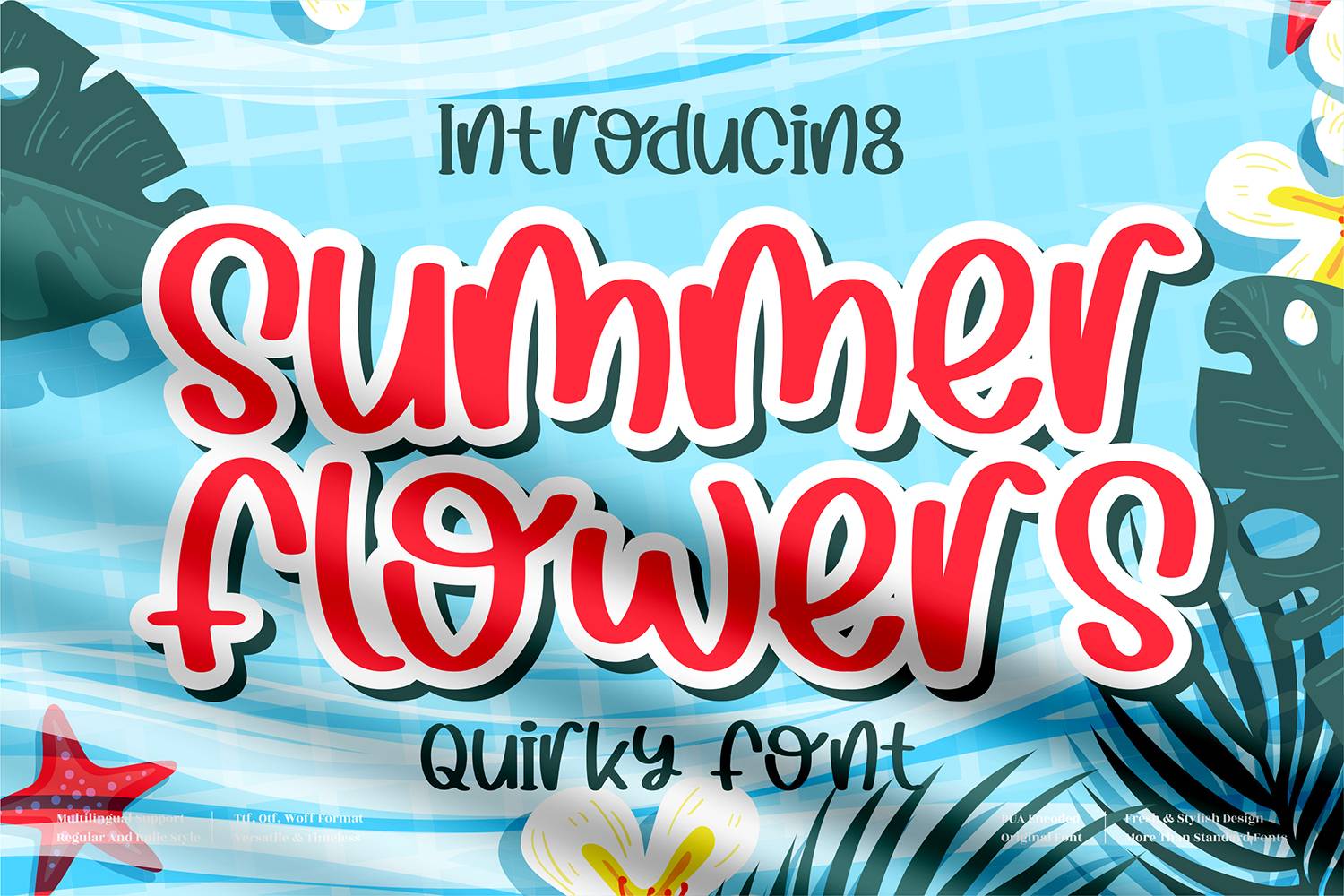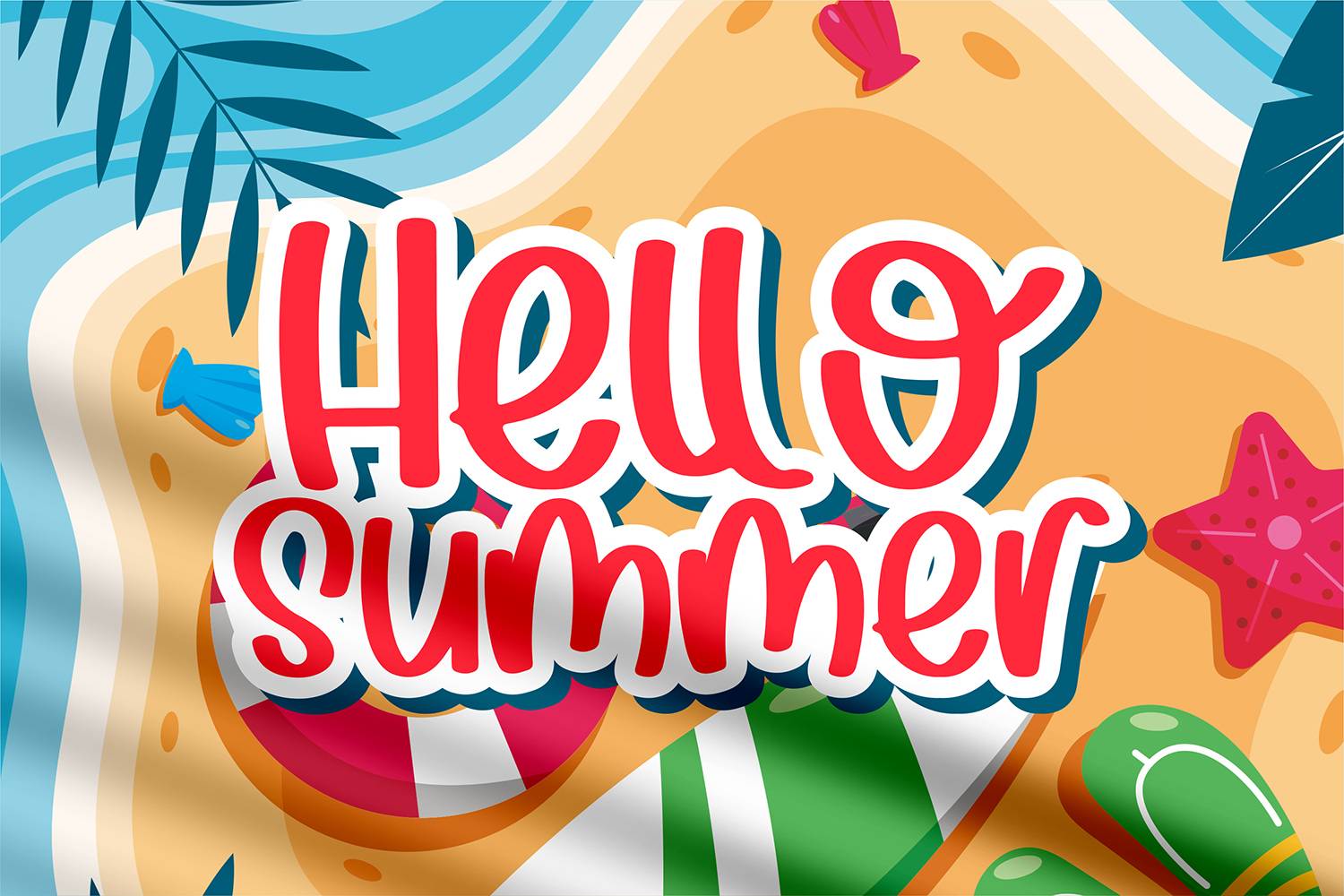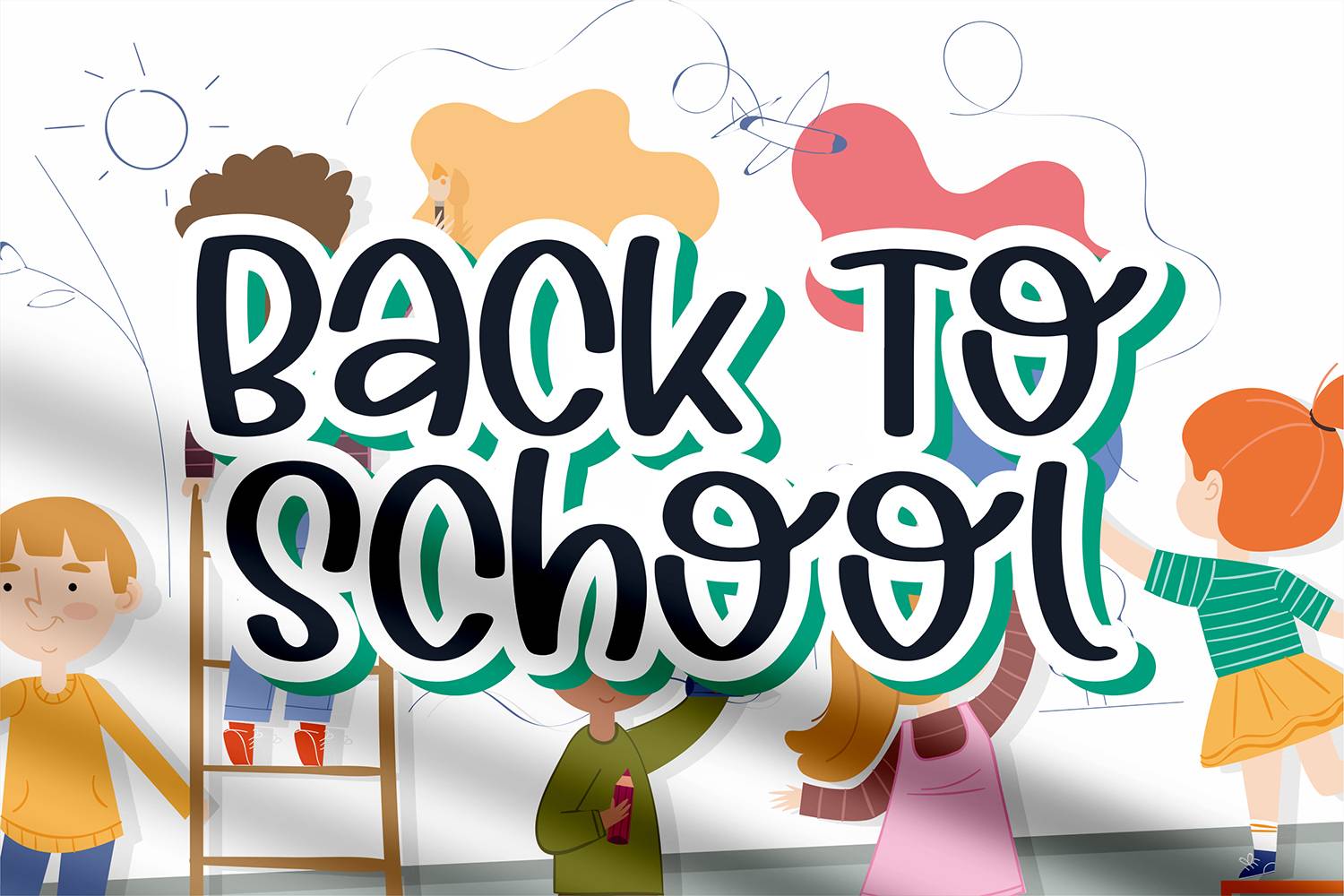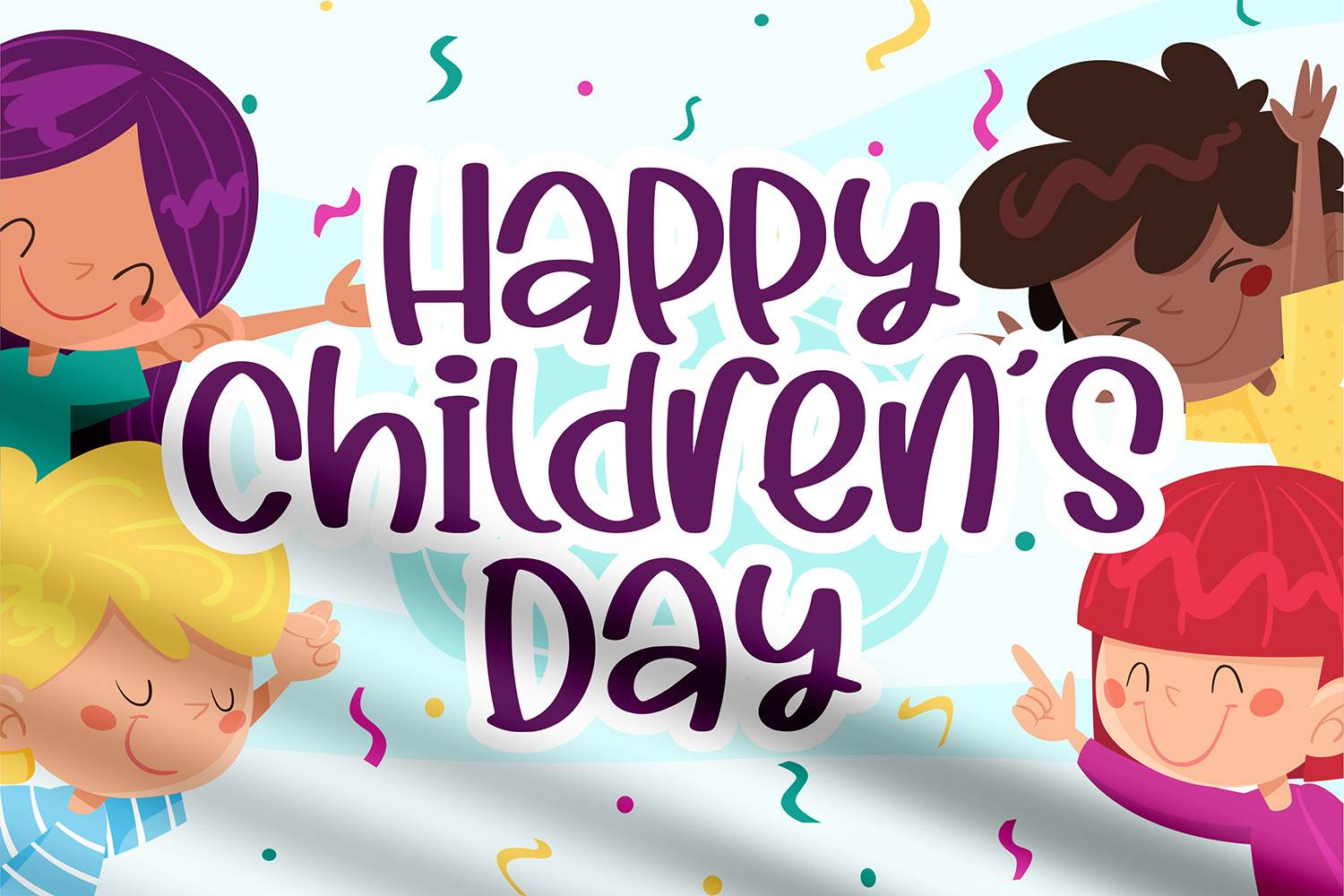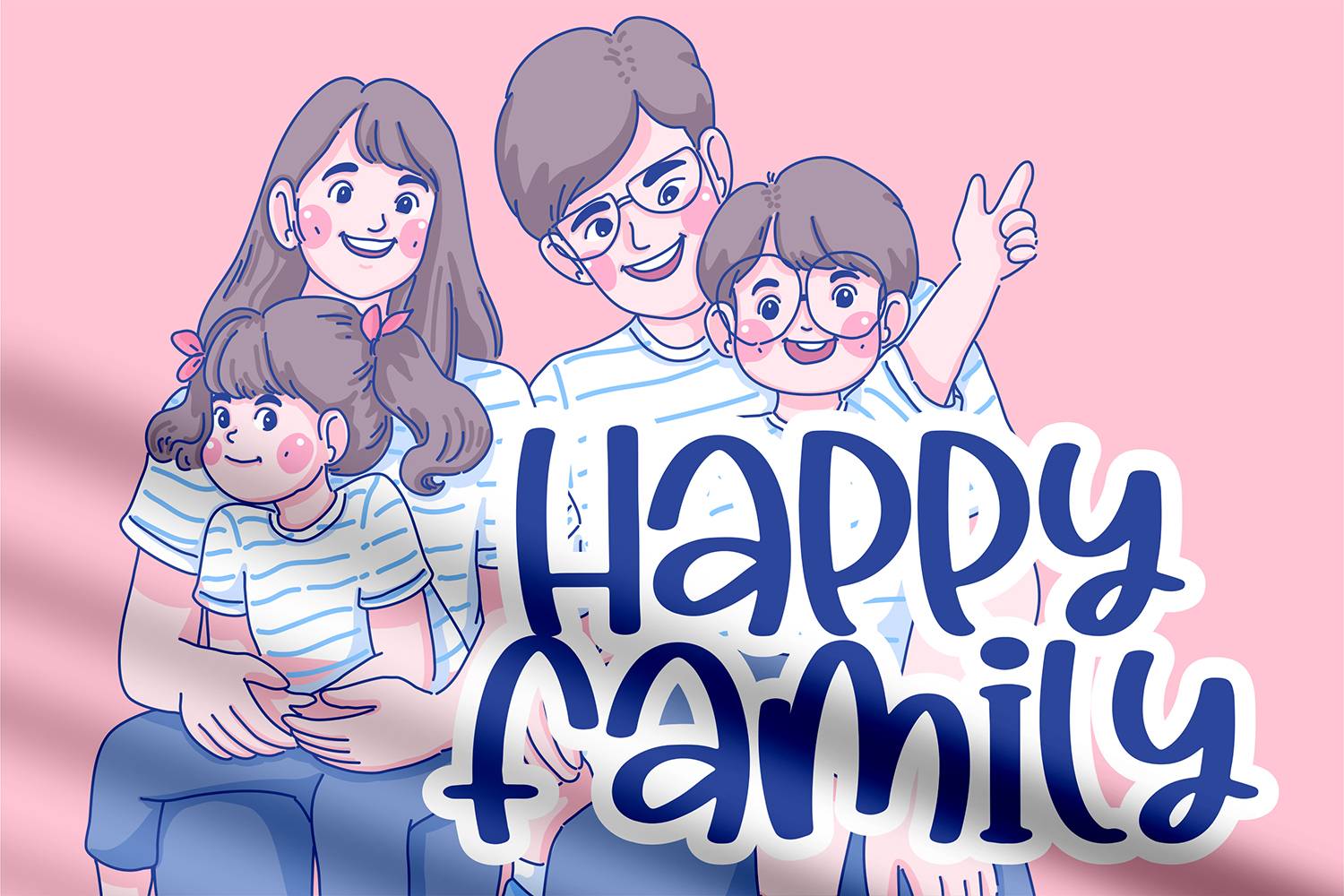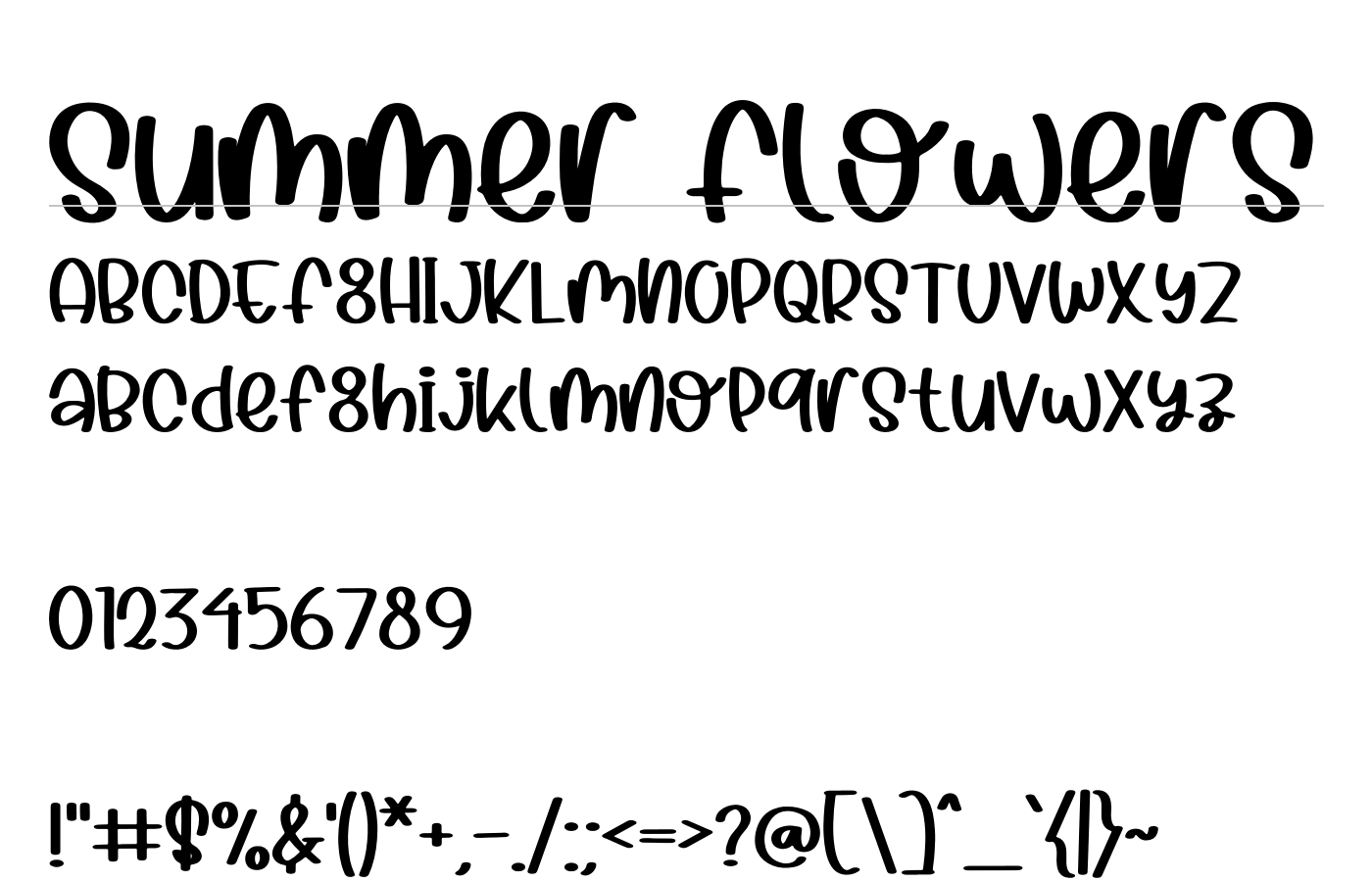
Summer Flowers is a playful, handwritten sans serif font with a casual and friendly vibe. Its smooth, rounded strokes and slightly irregular shapes give it a warm, approachable feel, perfect for designs that want to evoke creativity and fun. This font works wonderfully in informal branding, invitations, and children’s projects where a lighthearted, personal touch is desired.
Summer Flowers Font
About Summer Flowers Font